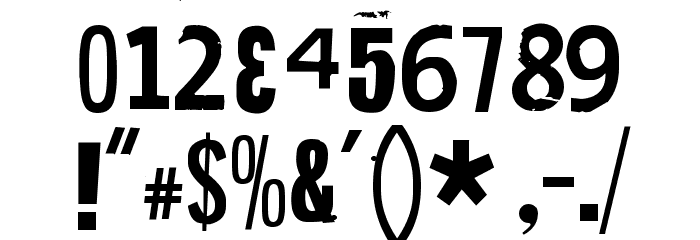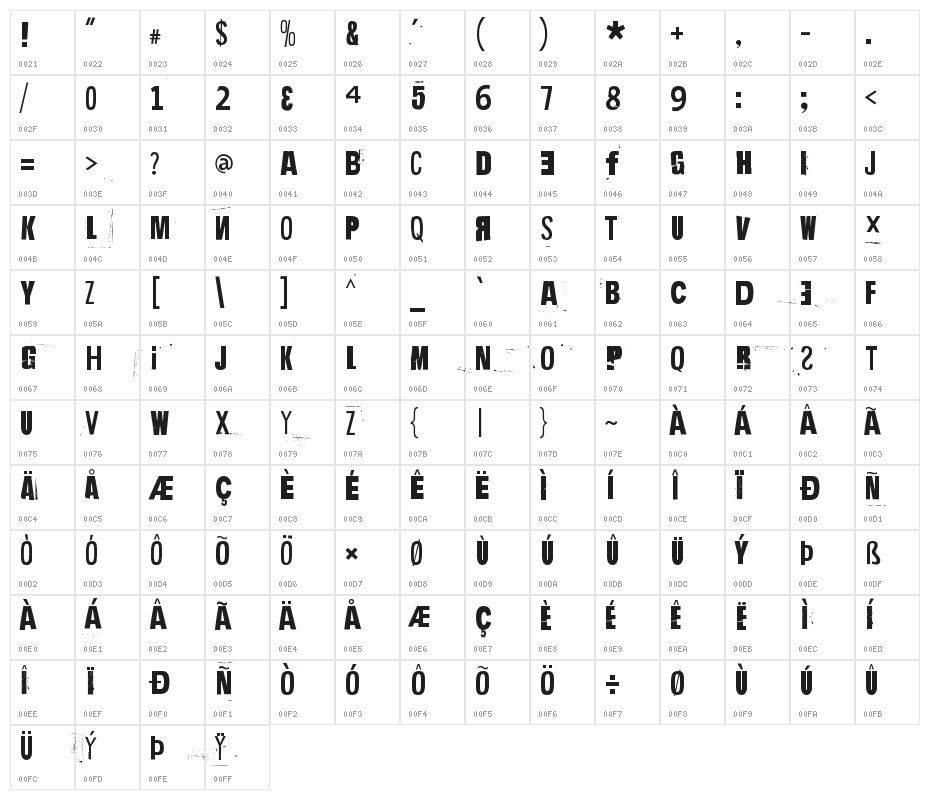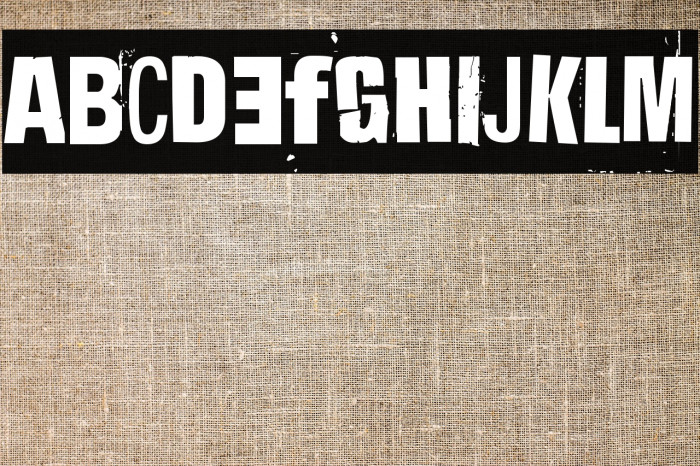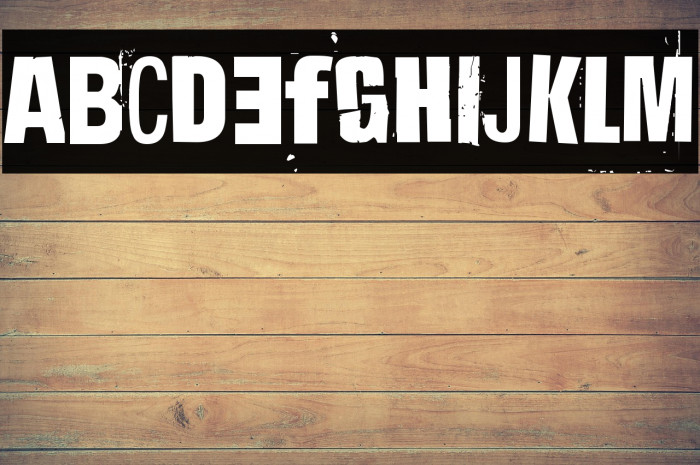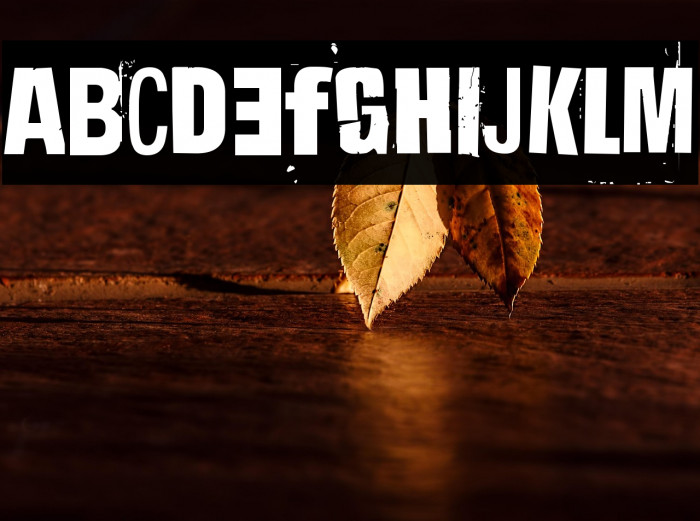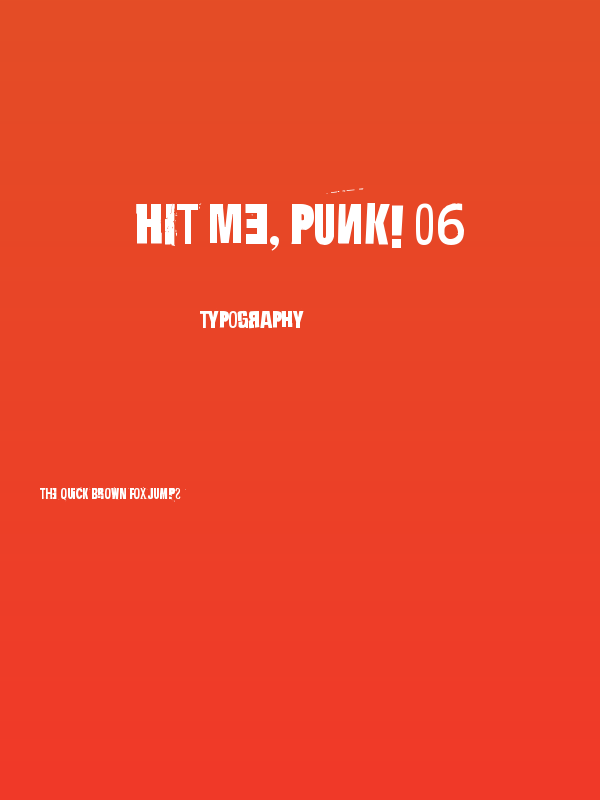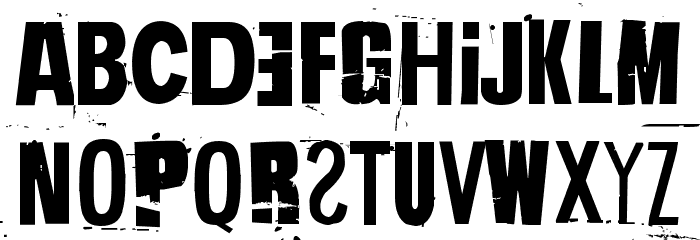
Hit me, punk! 06 Font
Hit me, punk! 06 Description
This font features a bold, distressed style with a gritty, urban aesthetic. The characters are heavily textured, giving them a worn, rugged appearance that suggests a punk or grunge influence. The uppercase letters are bold and impactful, while the lowercase letters maintain the same distressed look, creating a cohesive design. Numbers and special characters follow the same aesthetic, ensuring consistency across all text elements. The font's irregular edges and rough texture make it ideal for projects that require a rebellious or edgy feel.
| Overall Style | Punk, Grunge, Urban |
| Proposed Projects | Ideal for music album covers, posters, streetwear branding, or any project needing a rebellious, edgy vibe. |